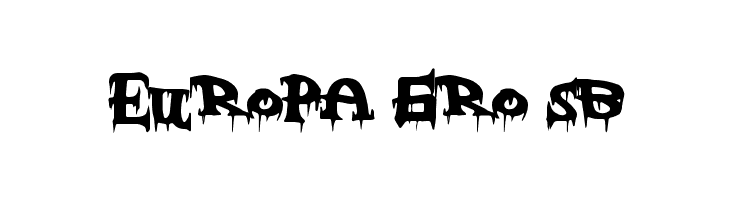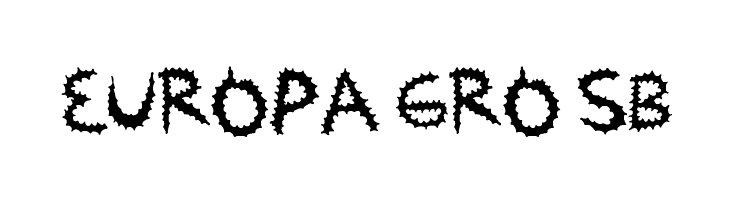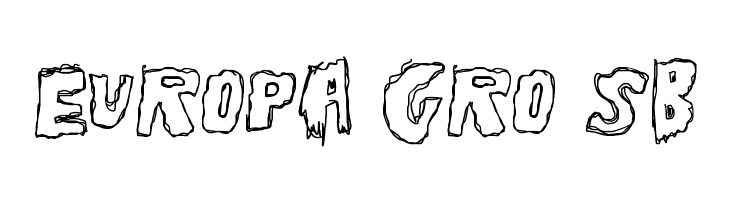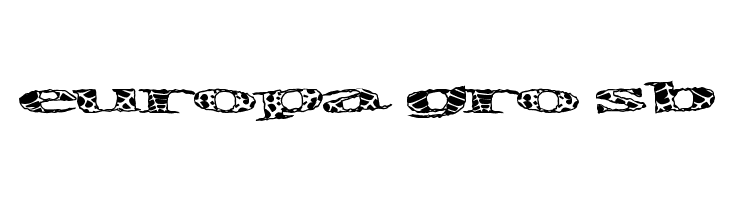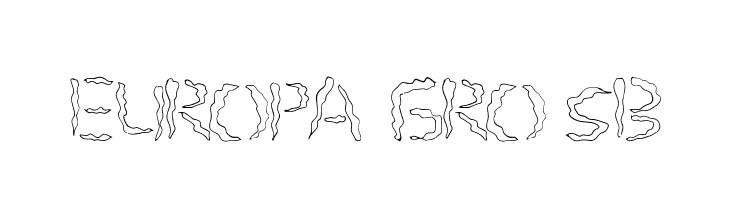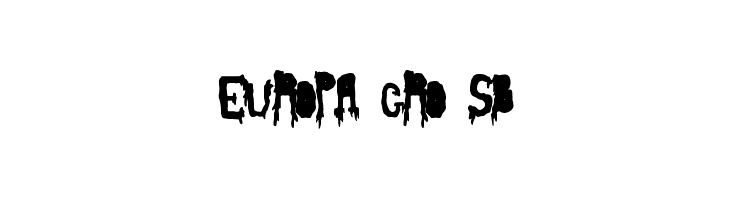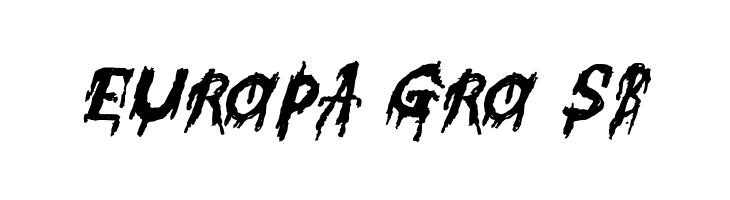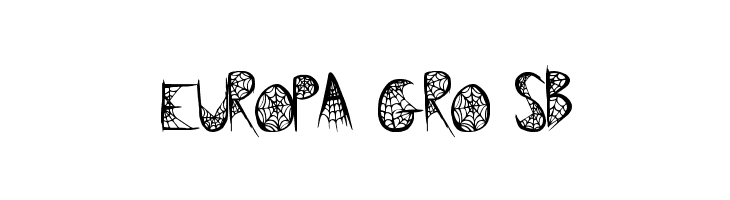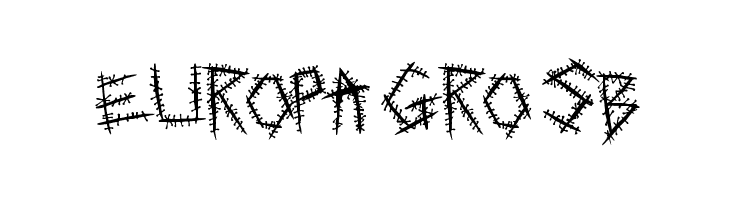
A bold, dripping font perfect for spooky and eerie designs.
A jagged, edgy font with sharp, irregular edges for a dynamic look.
A jagged, spooky font with an eerie, torn-paper appearance.
A rugged, horror-themed font with dripping, jagged characters.
A decorative, pirate-themed font with intricate, web-like patterns.
An eerie, wavy stencil font perfect for spooky designs.
A dripping, eerie font ideal for horror-themed designs.
A bold, jagged font with a horror-inspired, dripping effect.
A decorative font with intricate spider web designs, ideal for spooky themes.
A rugged, stitched-style font with a handcrafted, edgy appearance.